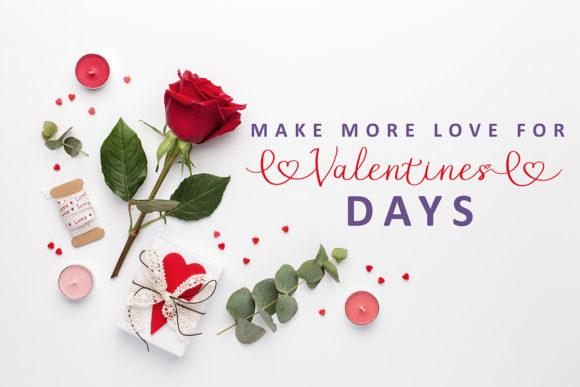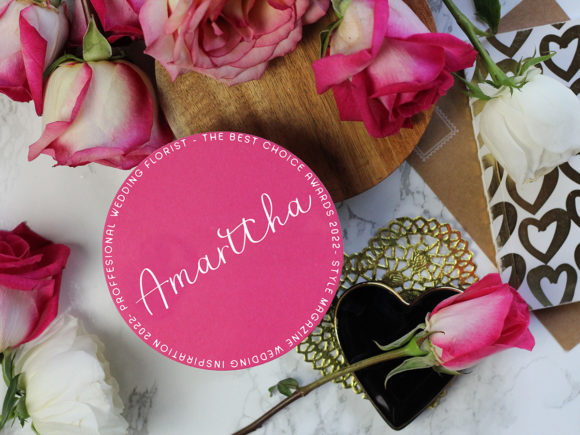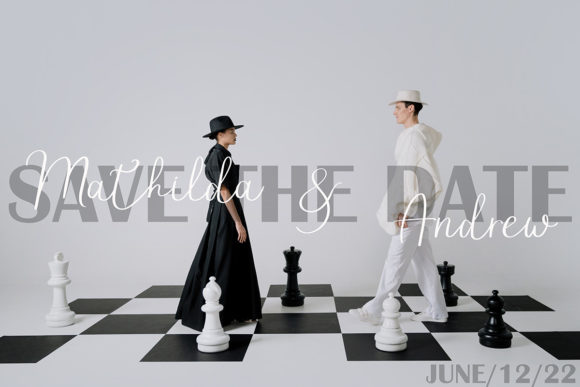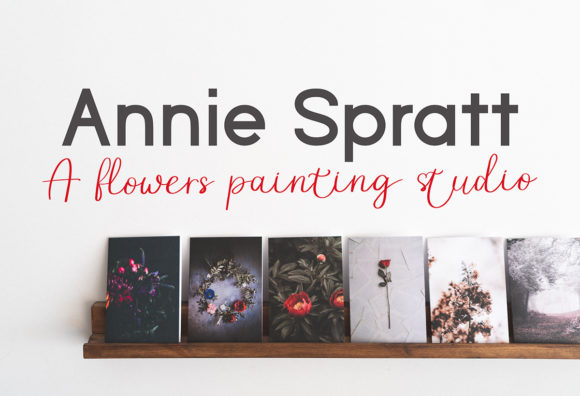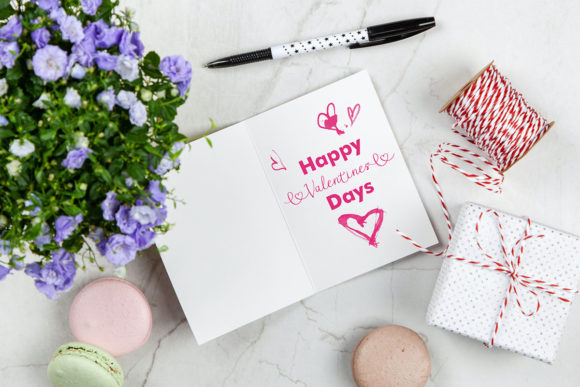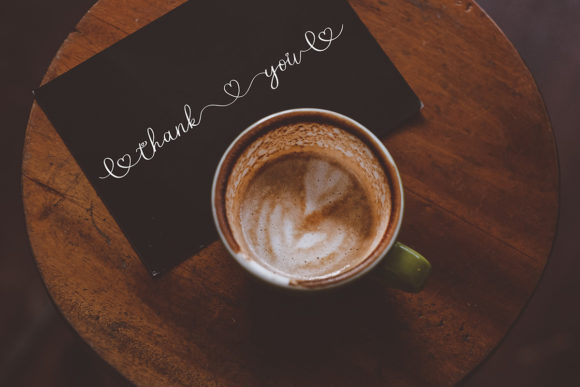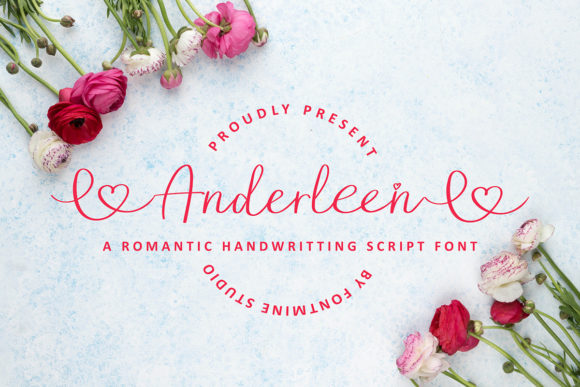
Introducing Anderleen Font: The Sweetest Script Font for Your Valentine’s Day Projects
Are you looking for a beautiful and romantic script font to make your Valentine’s Day projects stand out? Look no further than Anderleen Font! This stunning script font is perfect for creating sweet and sentimental cards, invitations, and letters that will capture the essence of love and romance.
What Makes Anderleen Font So Special?
Anderleen Font is a sweet and romantic script font that is specifically designed to add a touch of elegance and sophistication to your Valentine’s Day projects. With its flowing curves and delicate lines, this font is sure to capture the hearts of your loved ones. Whether you’re creating handmade cards, invitations, or letters, Anderleen Font is the ideal choice to express your feelings in a beautiful and meaningful way.
One of the best things about Anderleen Font is that it’s PUA (Private Use Area) encoded, which means you can access all of the glyphs and swashes with ease! PUA encoding allows you to access a wide range of special characters, including ligatures, ornaments, and swashes, that can help you add an extra touch of elegance and sophistication to your projects. With Anderleen Font, you can easily create beautiful and intricate designs that will make your projects stand out.
Perfect for Valentine’s Day Projects
Anderleen Font is specifically designed with Valentine’s Day projects in mind. Whether you’re creating handmade cards, invitations, or letters, this font is sure to add a touch of romance and sweetness to your designs. With its delicate lines and flowing curves, Anderleen Font is perfect for creating projects that are sentimental, elegant, and beautiful.
Why Designers and Crafters Love Anderleen Font
Designers and crafters love Anderleen Font for many reasons. Here are just a few:
- Elegant and Sophisticated: Anderleen Font is a beautiful and elegant script font that adds a touch of sophistication to any project.
- Easy to Use: With PUA encoding, Anderleen Font is easy to use and access, even for those who are new to font design.
- Versatile: Anderleen Font can be used for a wide range of projects, from handmade cards and invitations to letters and more.
- Romantic: Anderleen Font is specifically designed to capture the essence of love and romance, making it perfect for Valentine’s Day projects.
Tips for Using Anderleen Font
Here are a few tips for using Anderleen Font in your projects:
- Pair it with Other Fonts: Anderleen Font pairs beautifully with other fonts, including serif and sans serif fonts. Experiment with different pairings to find the one that works best for your project.
- Use it for Headings and Titles: Anderleen Font is perfect for headings and titles, where its elegant and sophisticated lines can really shine.
- Add Swashes and Glyphs: With PUA encoding, you can easily add swashes and glyphs to your project to give it an extra touch of elegance and sophistication.
Anderleen Font is a beautiful and romantic script font that is perfect for Valentine’s Day projects. With its elegant lines, delicate curves, and PUA encoding, this font is sure to add a touch of sophistication and elegance to any project. Whether you’re a designer or crafter, Anderleen Font is a great choice for anyone looking to create beautiful and meaningful projects that capture the essence of love and romance.